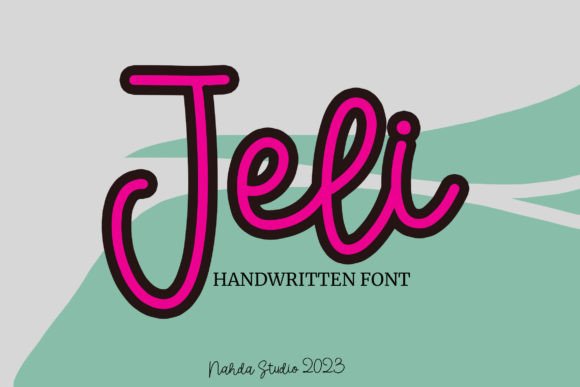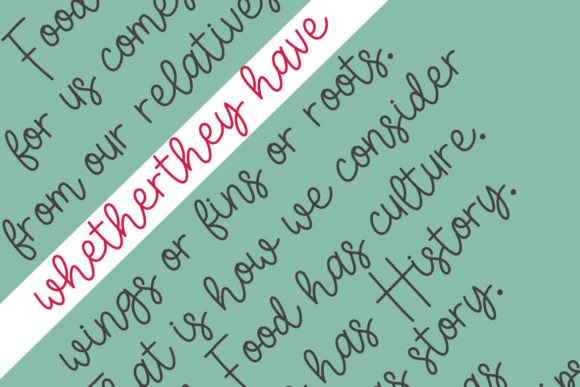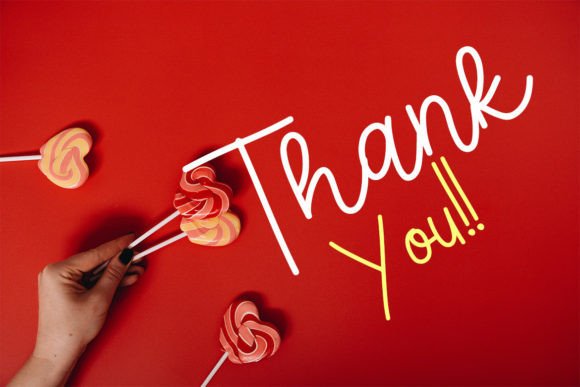
Jeli
Jeli Font: Sweet Handwritten Style for Personal Designs
Meet Jeli – the handwritten font that feels like a warm, personal note. With its organic flow and slightly irregular baseline, this PUA-encoded typeface captures the charm of authentic handwriting while maintaining perfect readability for all your creative projects.
Why You’ll Love Jeli
• Natural Imperfections: Intentional wobbles for authentic feel
• Versatile Personality: Works for sweet & sophisticated looks
Sweet Applications
Personal Branding
Perfect for:
• Handmade shop logos
• Blog headers
• Instagram bios
Crafty Creations
Ideal for:
• DIY wedding signs
• Scrapbook journaling
• Personalized gifts
Made with Love & Jeli Font
Technical Sweetness:
Perfect Pairings
1. Playful Combo: with Quicksand
2. Elegant Contrast: with Cormorant Garamond
3. Modern Mix: with Poppins Light